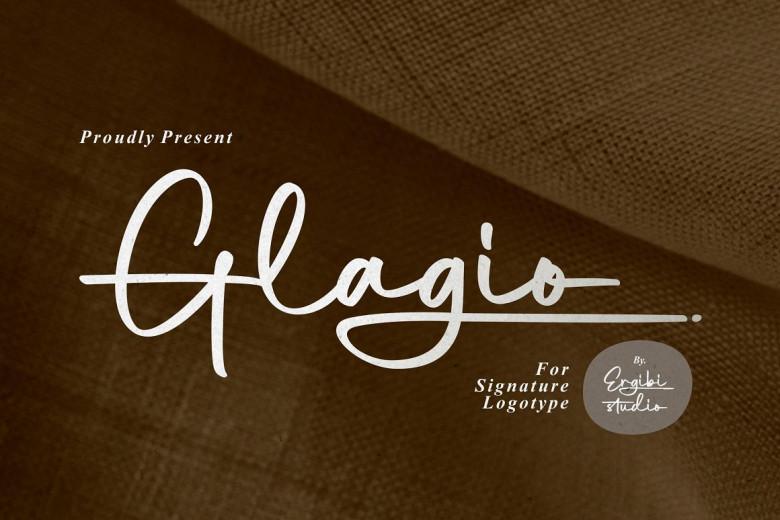
Glagio Font
Glagio is a signature font designed for handwritten logotypes that feature other characters, making it the ideal font to design photography studio logos and personal logos with additional characters. Ideal for branding initial logos as an initial logo.
Glagio features uppercase letters with end strokes for a distinctive handwriting style in each lowercase letter – giving the font its distinct handwriting style.
Glagio Handwritten Font